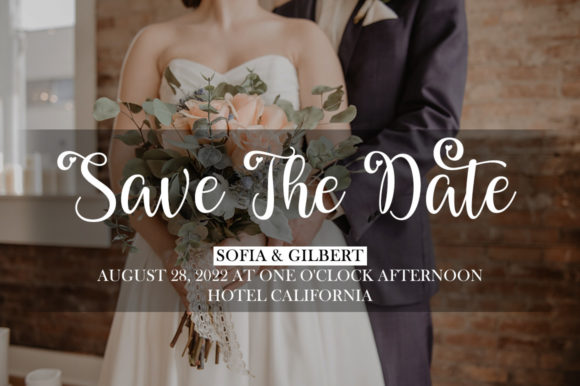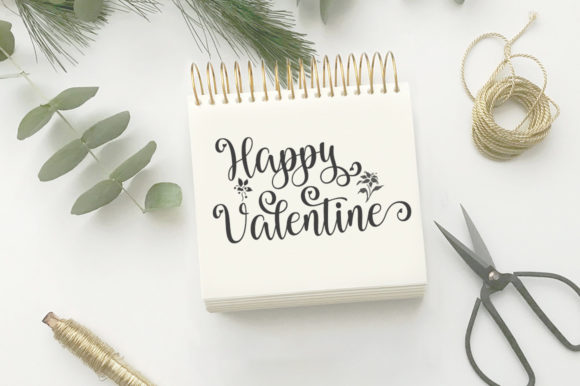
Mishela Font
db-ku.com - Script & Handwritten -- Mishela is a well-balanced and subtle handwritten font that is crafted with great care for maximum results. It will add elegance and class to any of your design projects. This font is PUA encoded which means you can access all of the glyphs and swashes with ease.